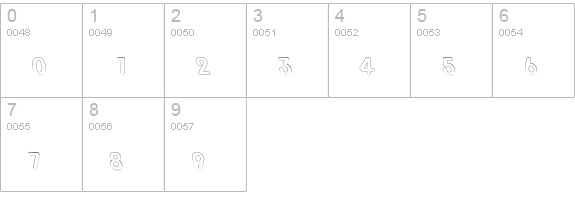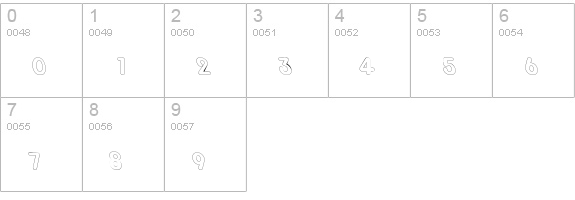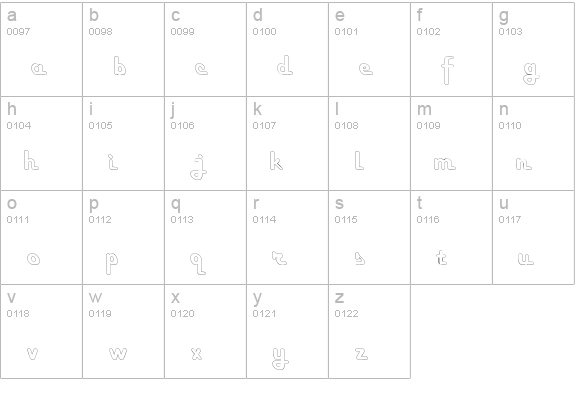
HamburgerUprightOutline Font Details
HamburgerUprightOutline font is a modern and stylish typeface that is perfect for adding a touch of playfulness and fun to your designs. This font features a unique combination of boldness and simplicity, making it suitable for a wide range of applications. With its clean lines and quirky shapes, HamburgerUprightOutline font is sure to catch the eye and create a memorable impression. Whether you're designing a logo, a poster, or a website, this font will add a touch of personality and charm to your project. One of the best things about HamburgerUprightOutline font is that it is freely available to download at FontsMarket.com. This means that you can easily access and use this font without any restrictions or limitations. Whether you're a professional designer or just someone who loves experimenting with typography, this font is a great addition to your collection. So why wait? Enhance your designs with the playful and unique HamburgerUprightOutline font today. Download it for free at FontsMarket.com and let your creativity soar.